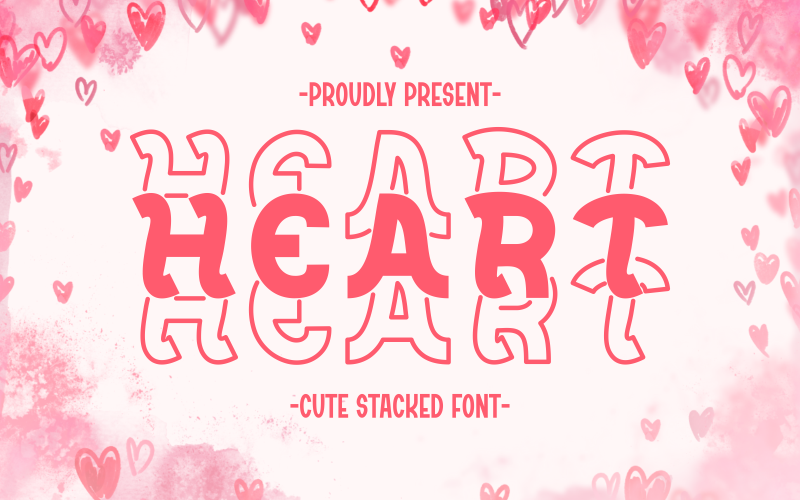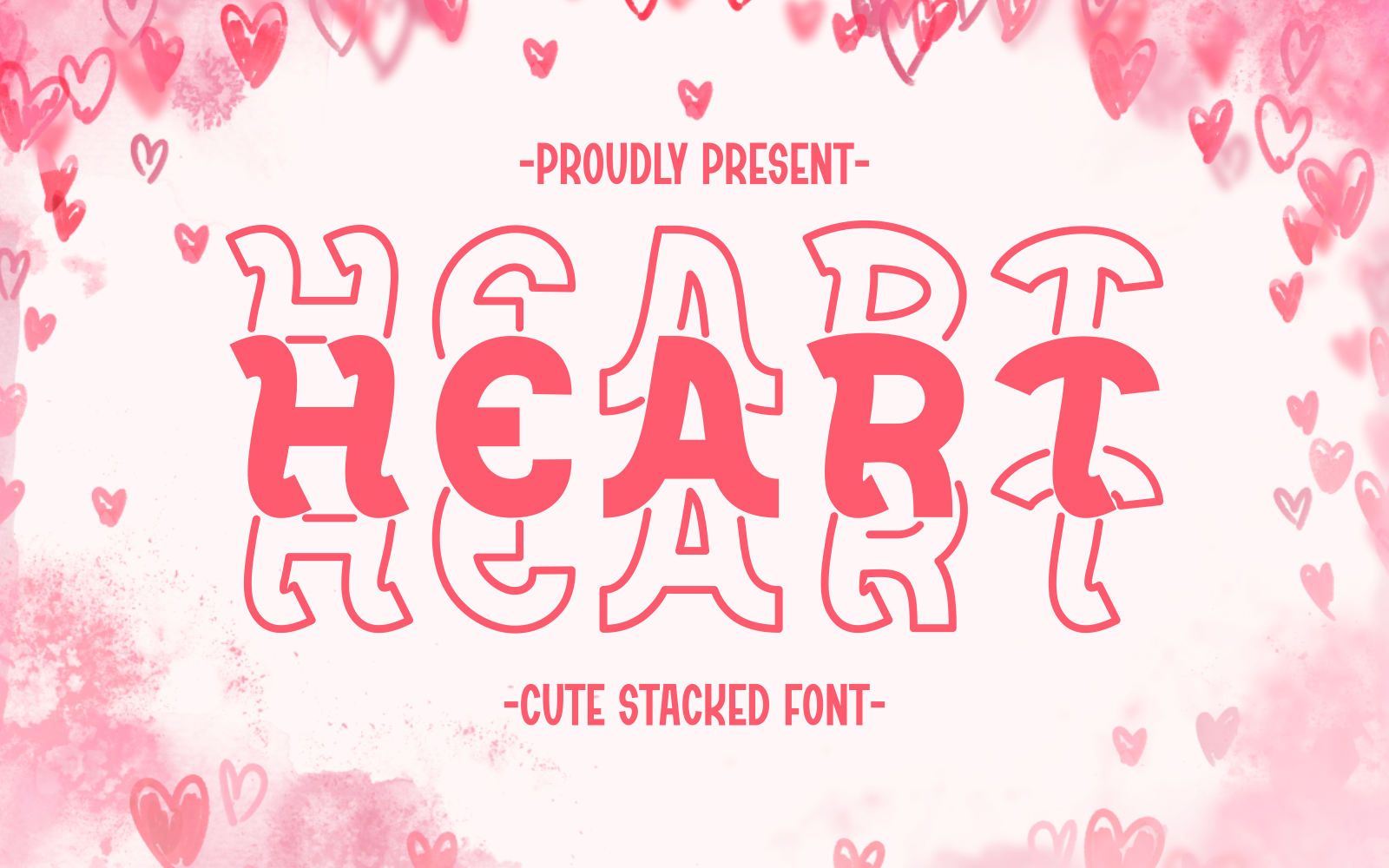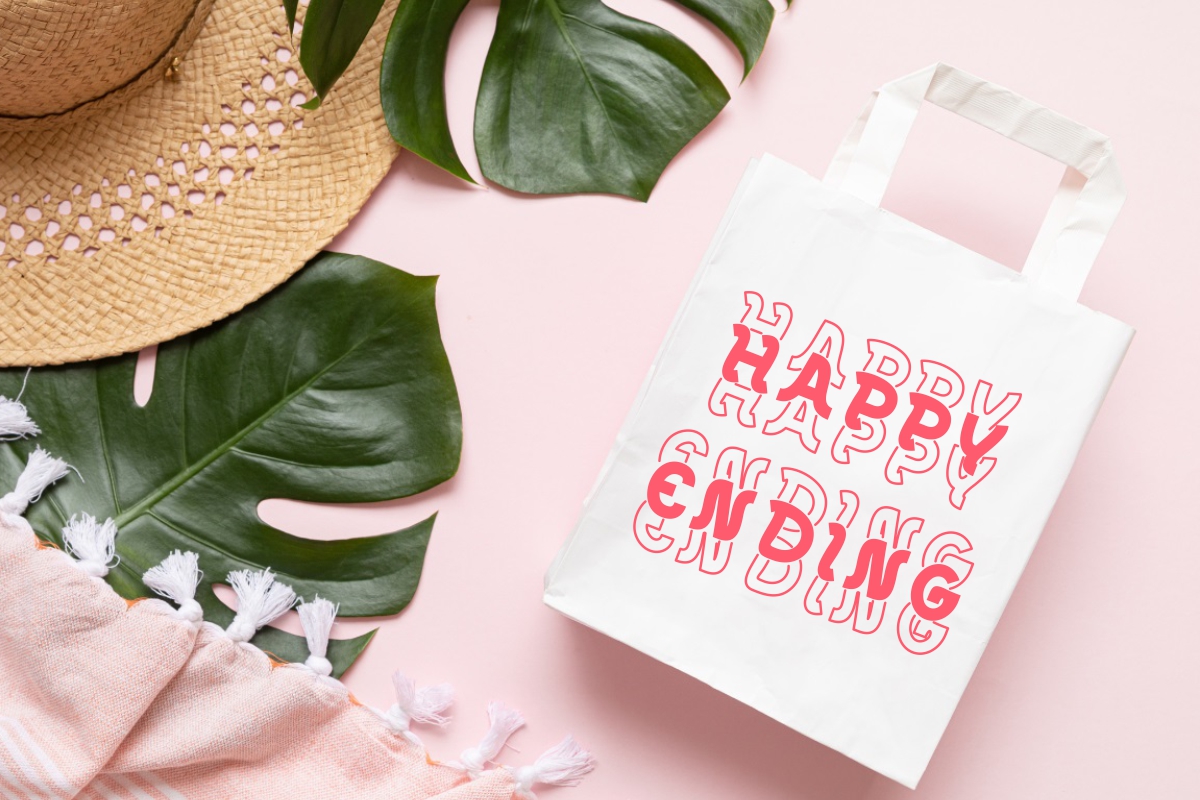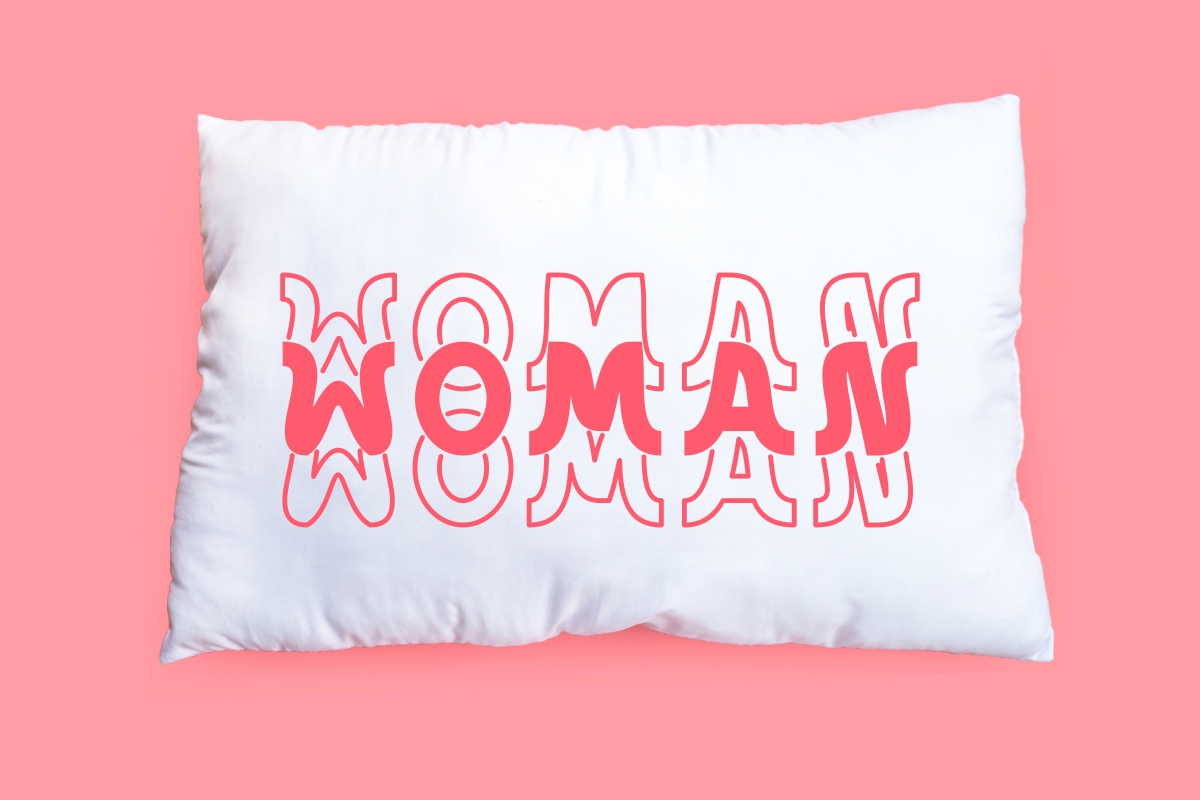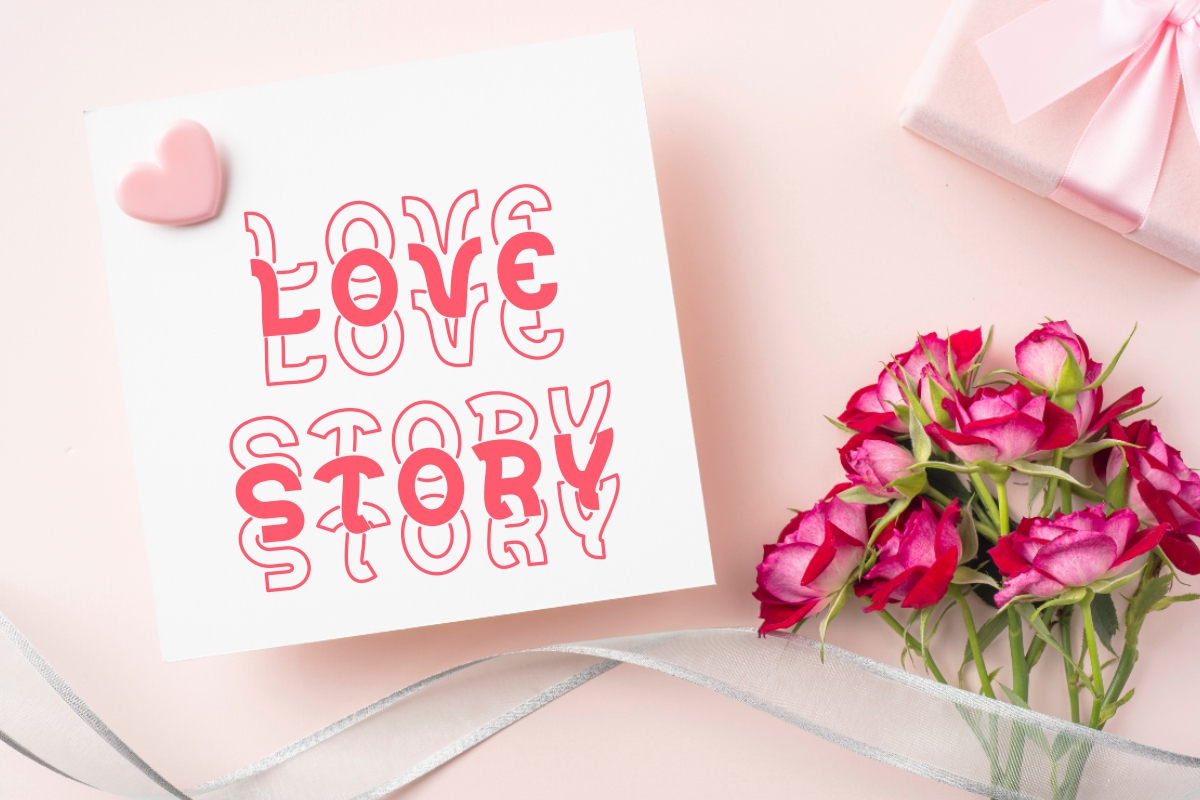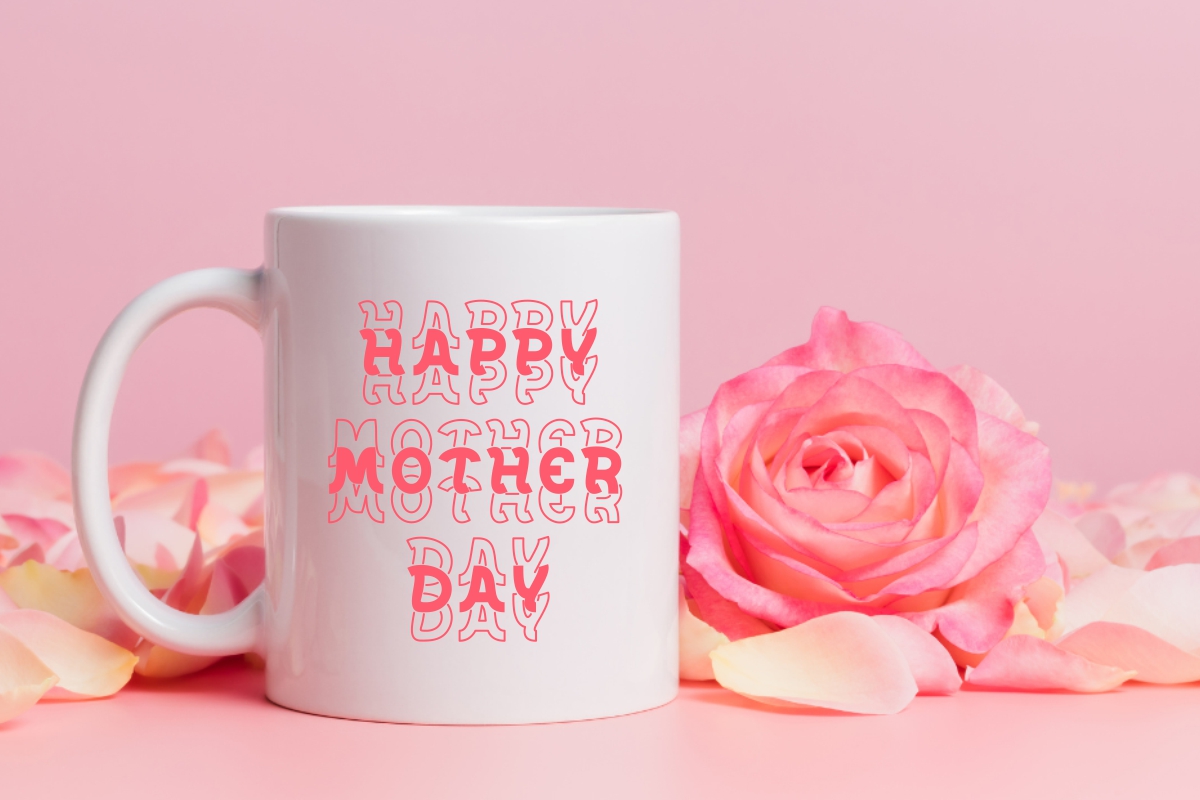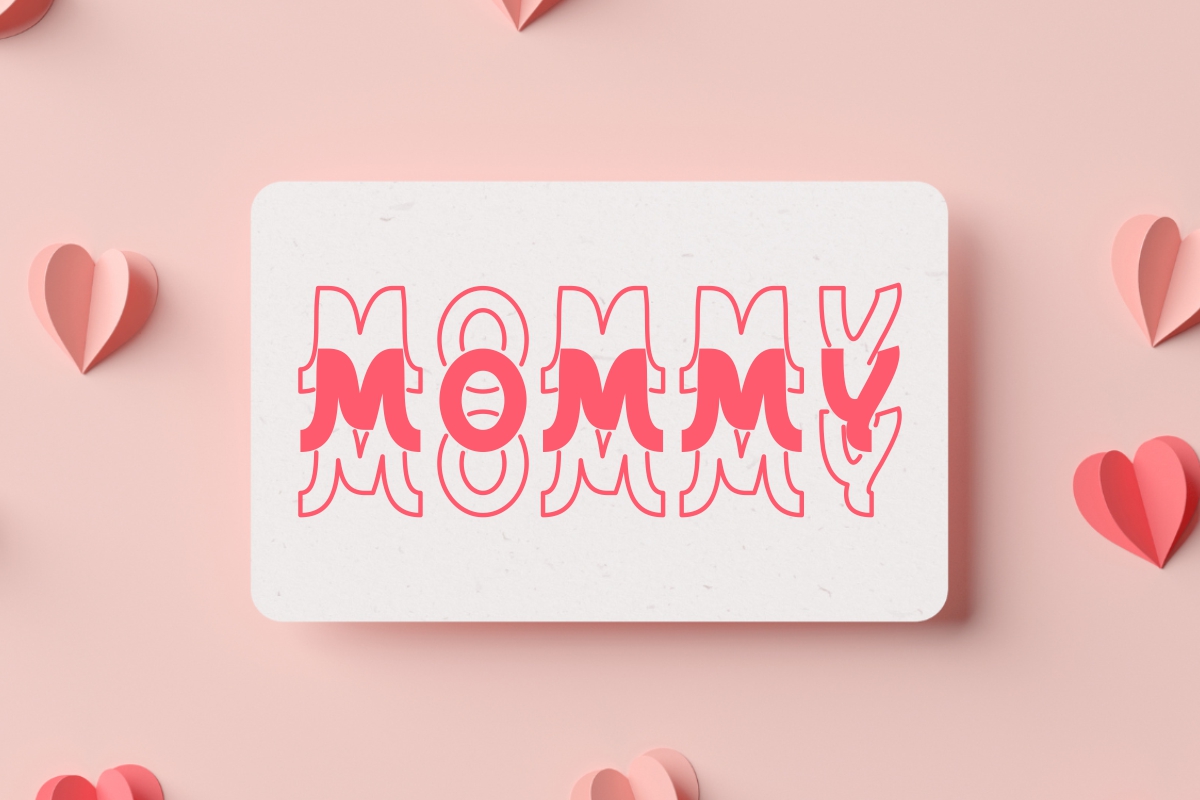
Heart - Cute Stacked Font
Introducing HEART, a charming and bubbly display font designed to infuse every project with sweetness and love. What makes Heart truly unique is its layered system: it comes with separate solid and outline files, enabling you to effortlessly create stunning, two-tone, and deep effects perfect for vibrant digital and print work. This font is a dream for any design demanding a hand-drawn, friendly, and adorable aesthetic. Its versatility makes it a must-have tool for crafters and designers specializing in romantic and family-focused items.